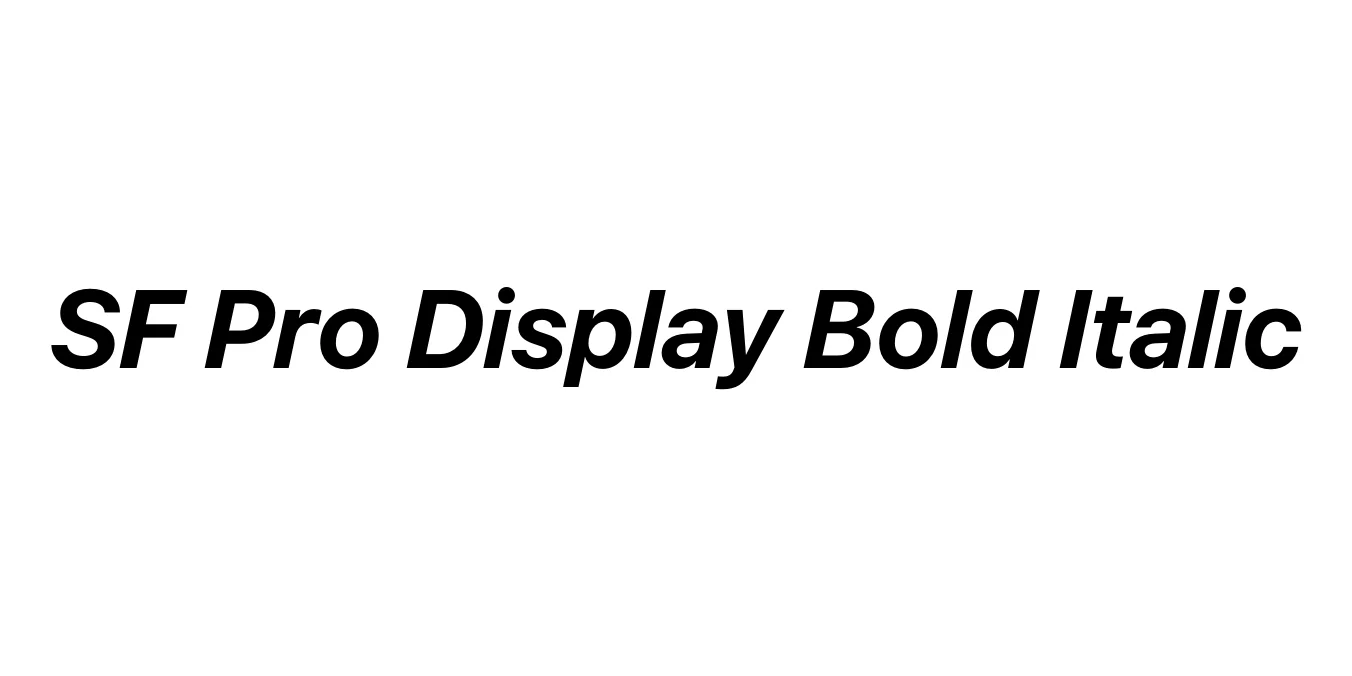
SF Pro Display Bold Italic
Designed by Apple Inc.
SF Pro Display Bold Italic is part of the San Francisco typeface family, the versatile system font designed by Apple Inc. specifically for digital interfaces. It features a neutral, yet friendly aesthetic with high legibility, optimized to look consistent across high-resolution displays and smaller mobile screens.
This Bold Italic variant is frequently used to provide emphasis and dynamic energy within user interfaces. Its wide range of optical sizes and adaptive tracking make it a cornerstone of macOS, iOS, and watchOS, ensuring that typography remains clear and accessible regardless of the device size or lighting conditions.
SF Pro Display Bold Italic Best Uses
Perfect for headings, navigation menus, and call-to-action buttons in mobile apps.
Excellent for tech-focused corporate identities and sleek digital marketing materials.
Ideal for social media graphics and web banners requiring a clean, authoritative look.